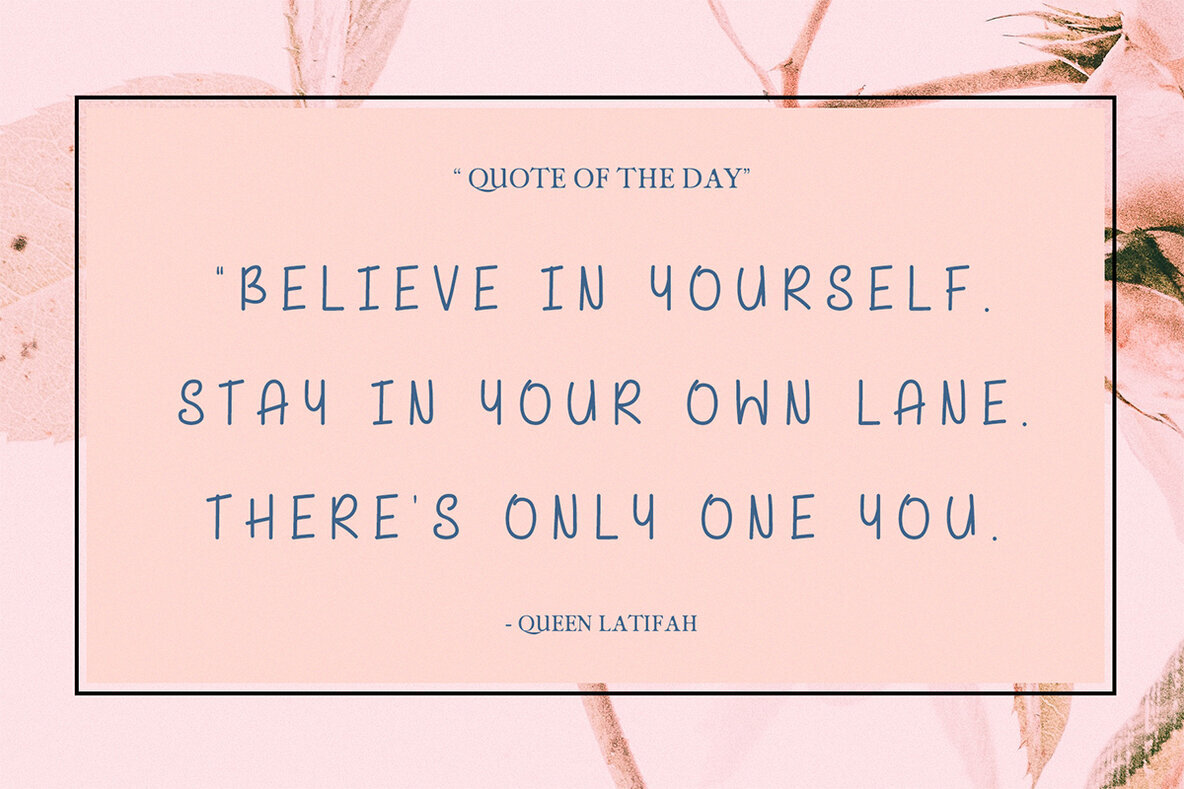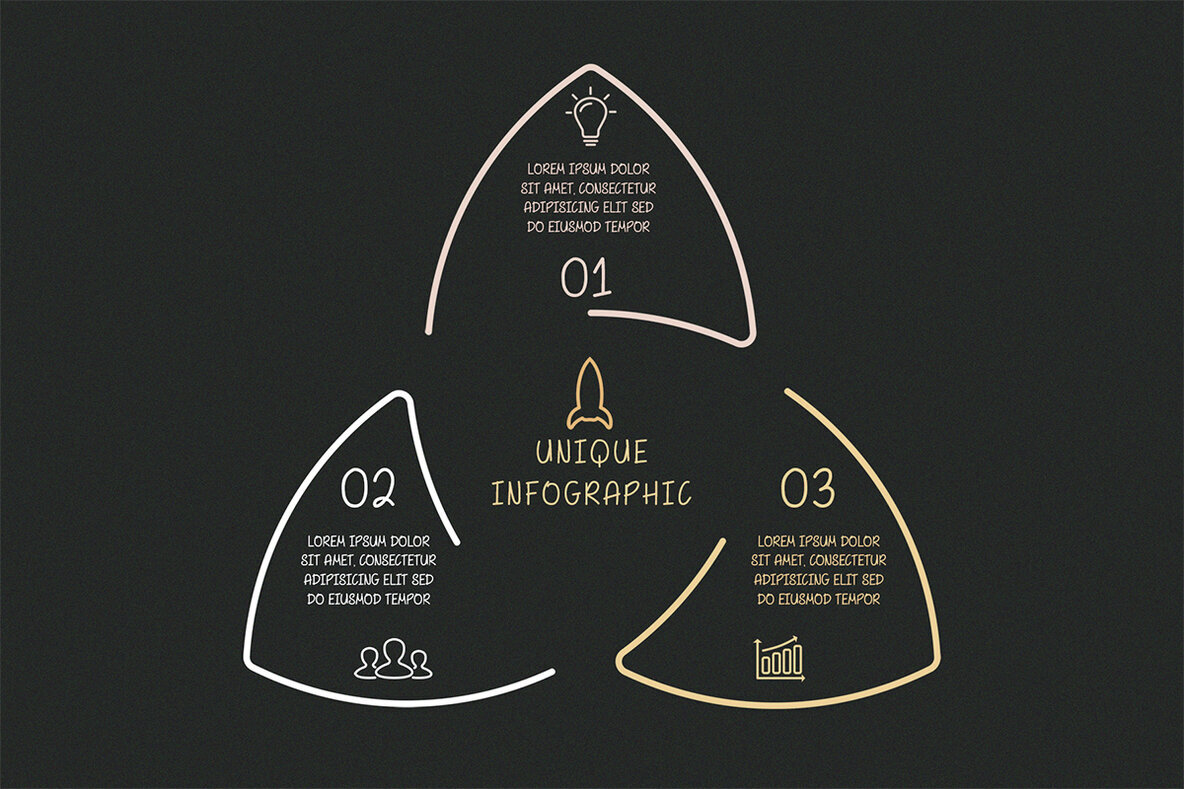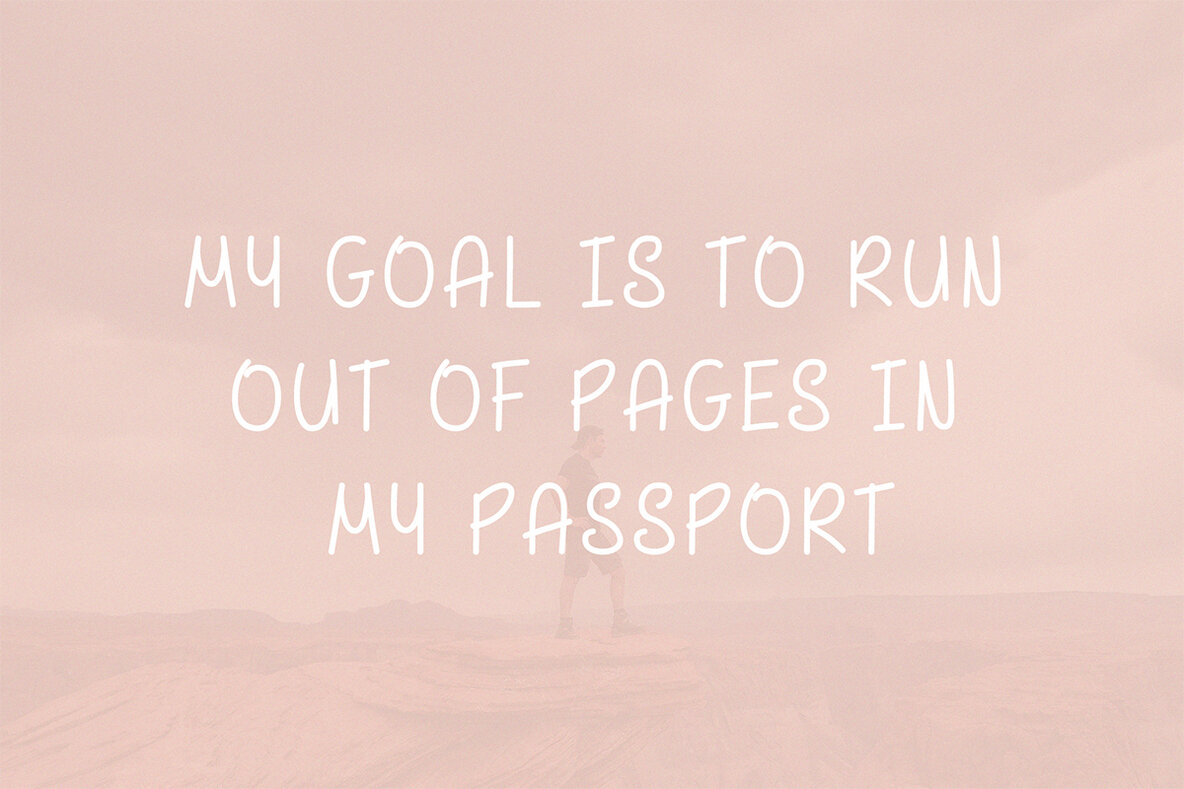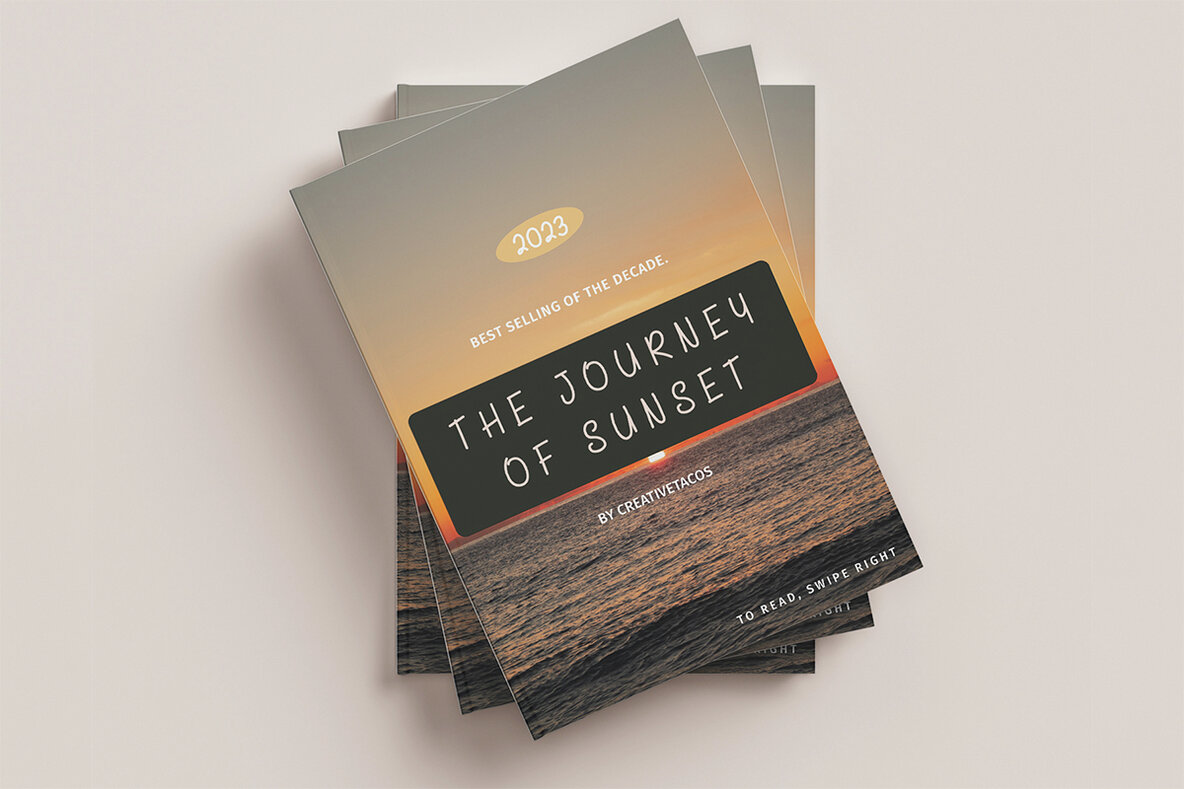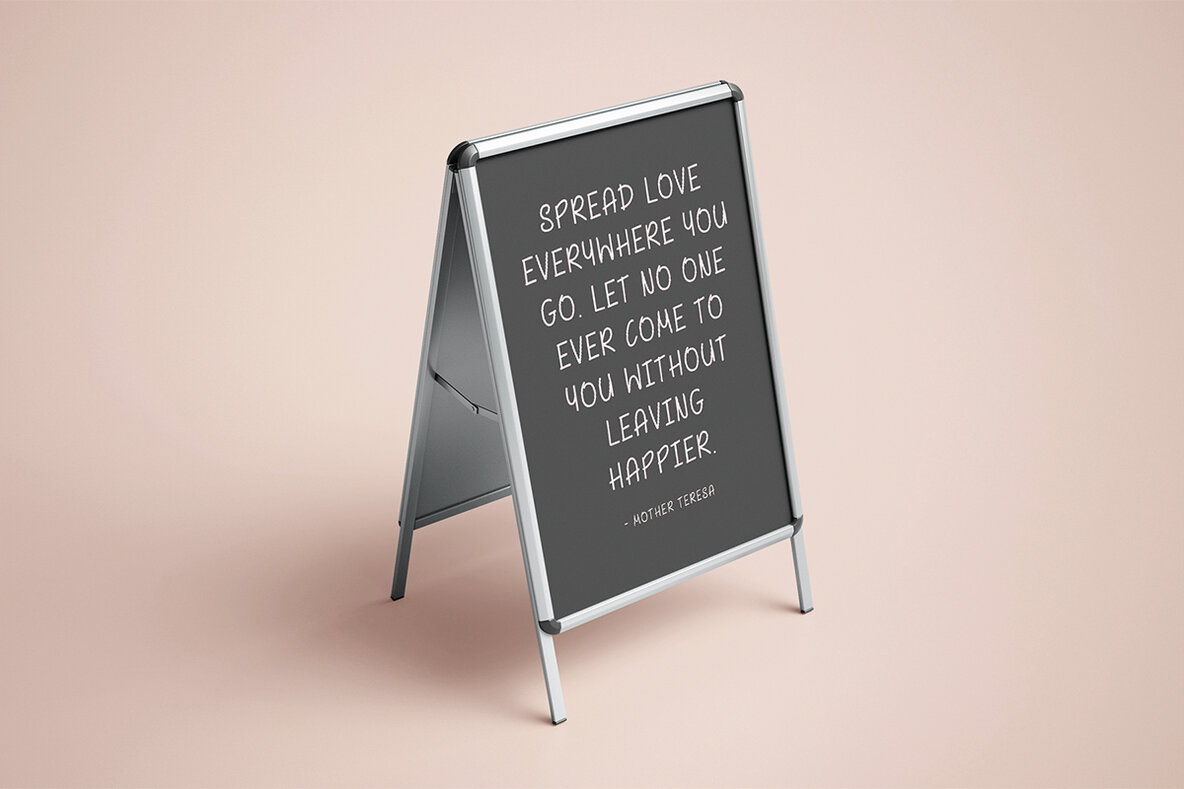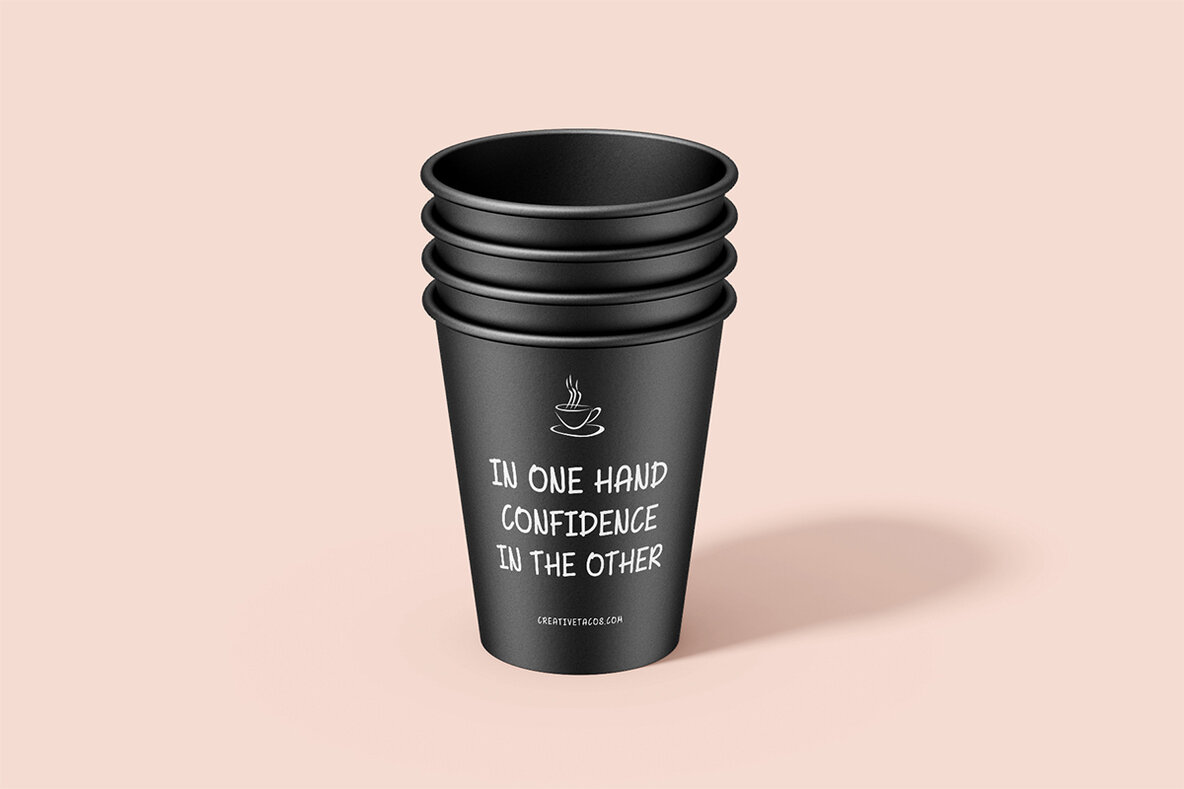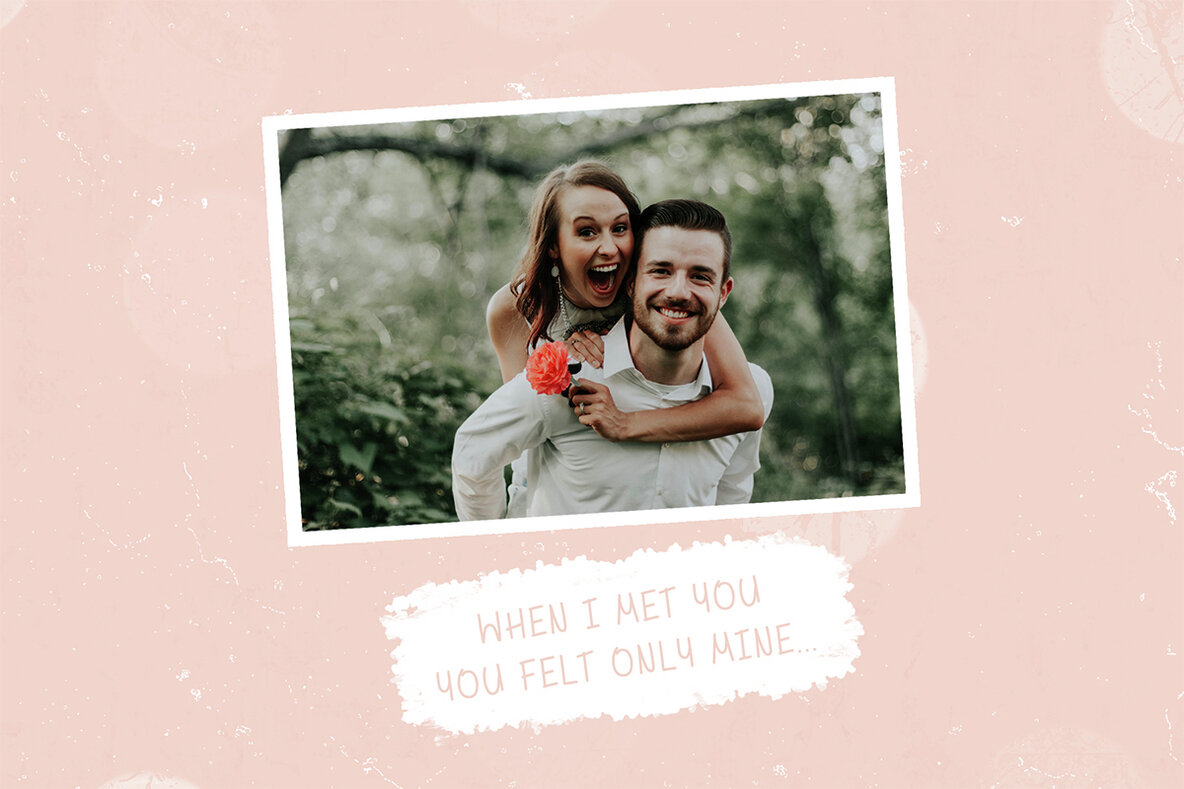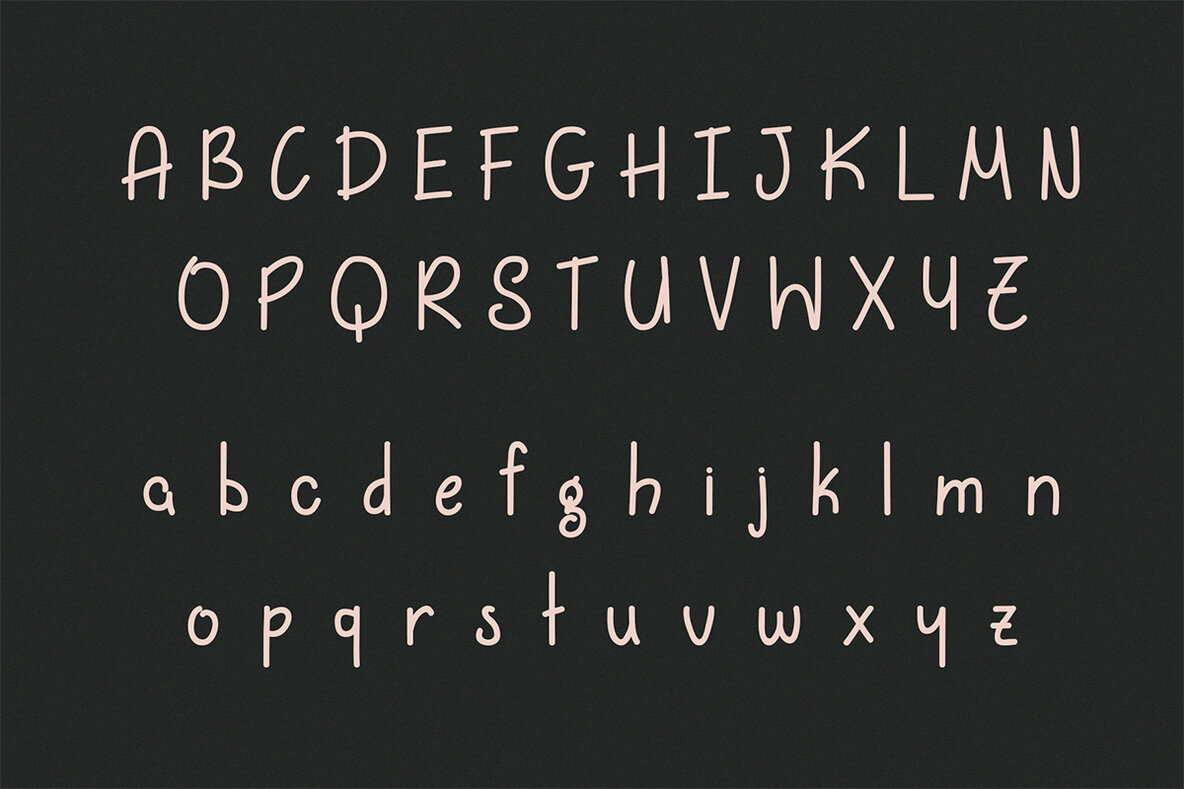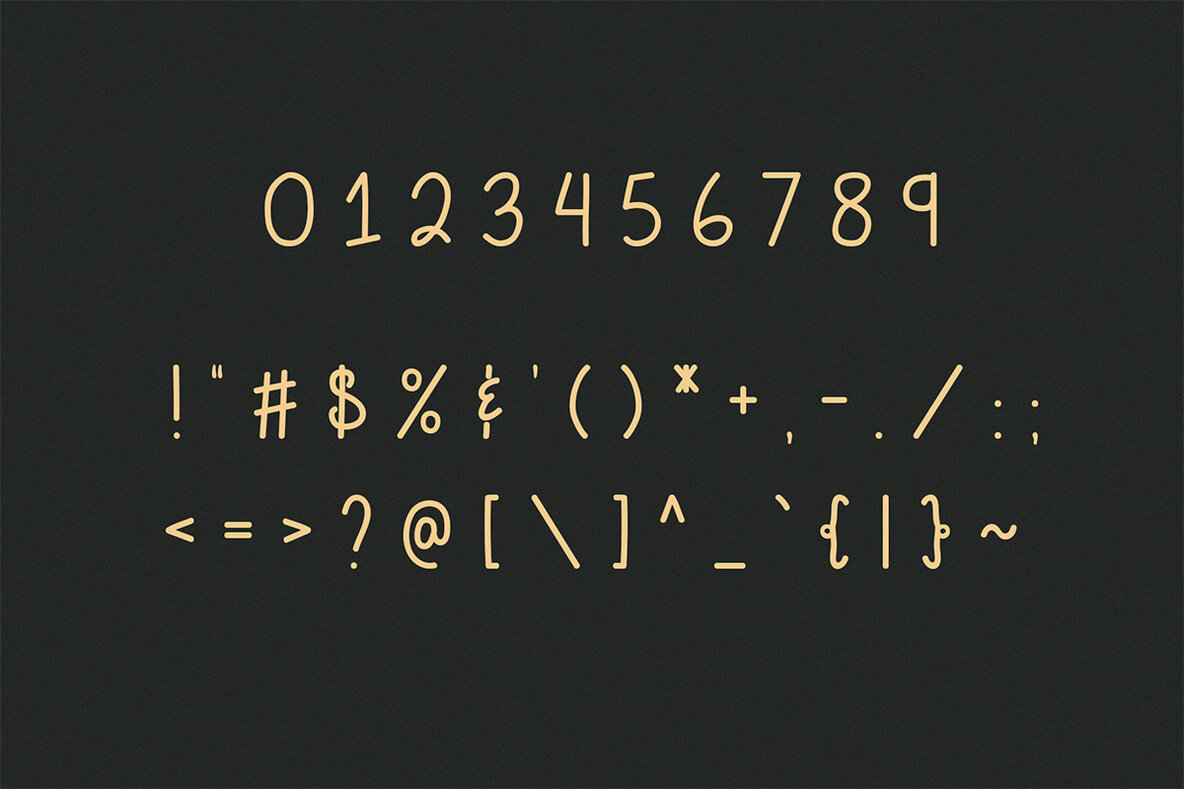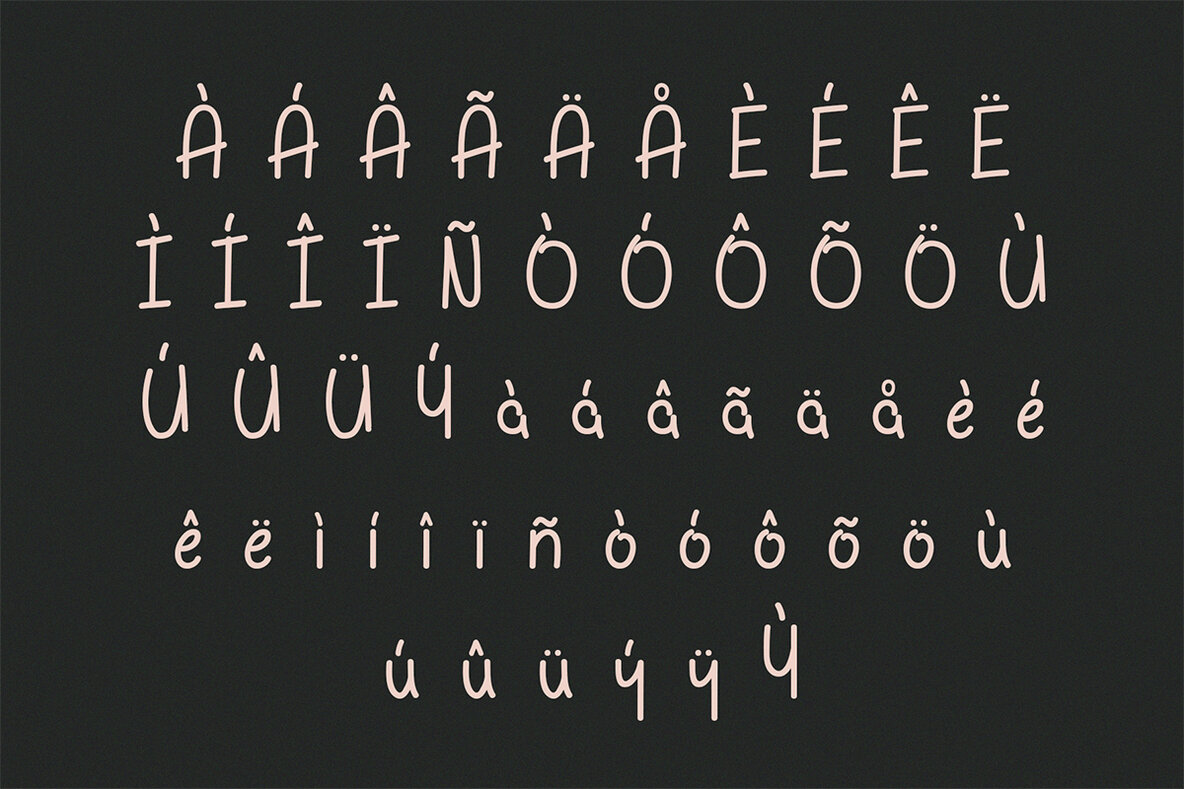
Dae hyun Font
Dae hyun Regular
Dae-hyun Fancy Font is an adorable and fresh typeface that’s perfect for infusing creativity into your projects. Featuring a comprehensive set of uppercase and lowercase letters, numbers, punctuation, and symbols, it also includes multilingual support, making it versatile for a wide range of uses. Whether you're working on packaging, presentations, logos, or headlines, this font brings a playful touch. Additionally, it's ideal for posters, branding, quotes, titles, magazine headings, web layouts, advertising, invitations, comic artworks, and children's party invitations.
The font’s distinct and whimsical characters include a full alphabet, numerals, and a broad range of special characters and accented letters, ensuring that you can communicate effectively in multiple languages. Its cheerful and inviting appearance makes it especially suitable for children’s projects or any design that calls for a fun and engaging look. With Dae-hyun Fancy Font, your creative possibilities are endless.